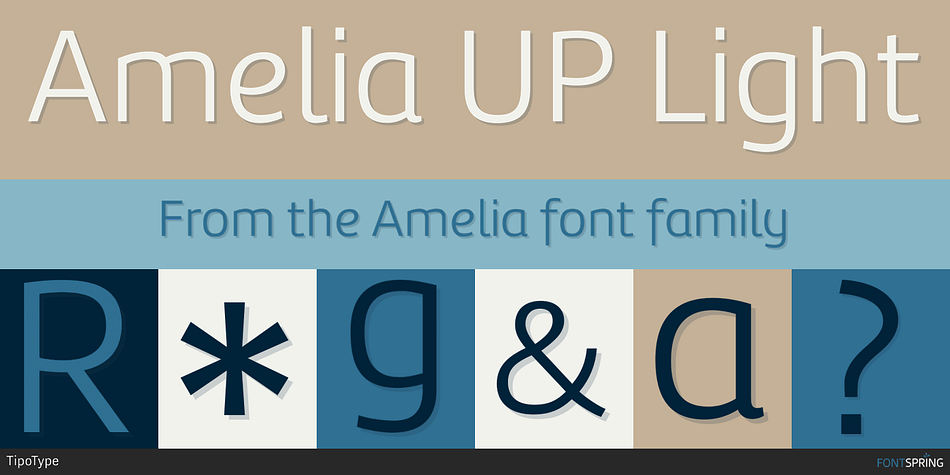
Amelia UP Light
Amelia is a sans serif font family. This typeface has sixteen styles and was published by TipoType.
Amelia is a geometric sans, but it keeps the softness of humanistic strokes.
The contrast and the different styles allow Amelia to work as a text or display font.
Also it incorporate a Up version, that incorporate calligraphic features that adds a touch of informality.